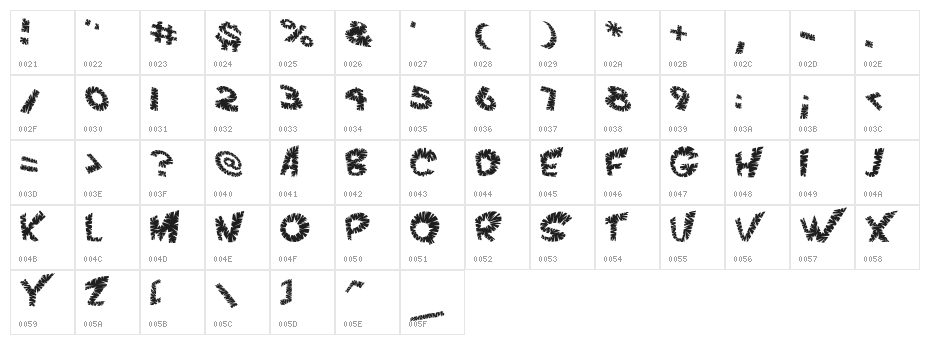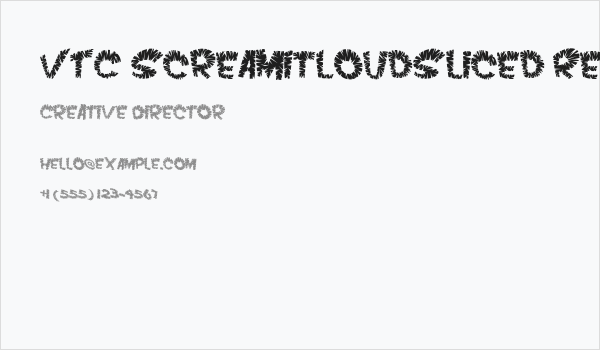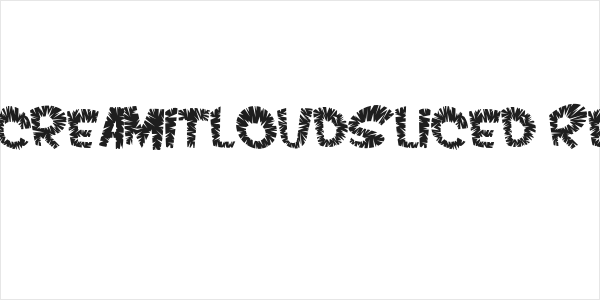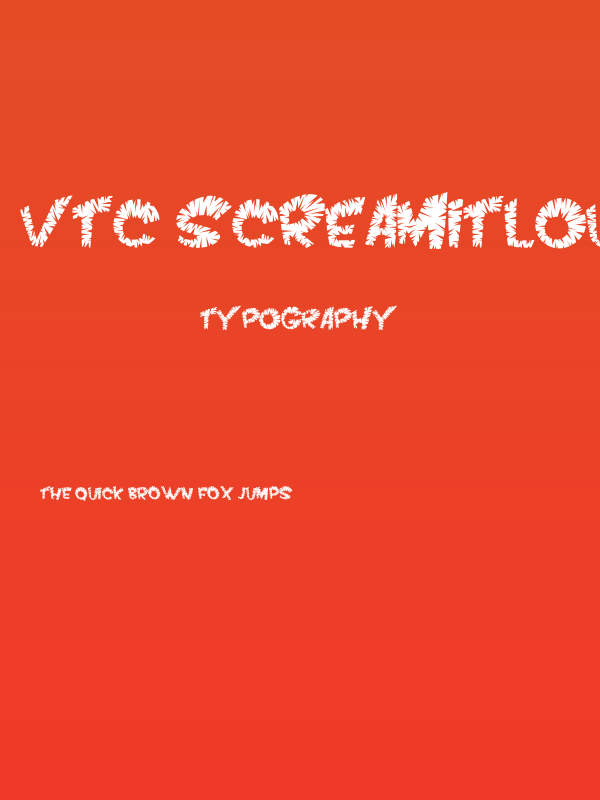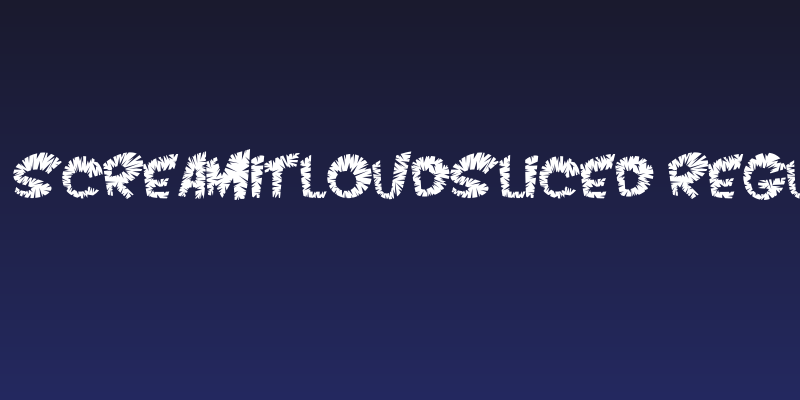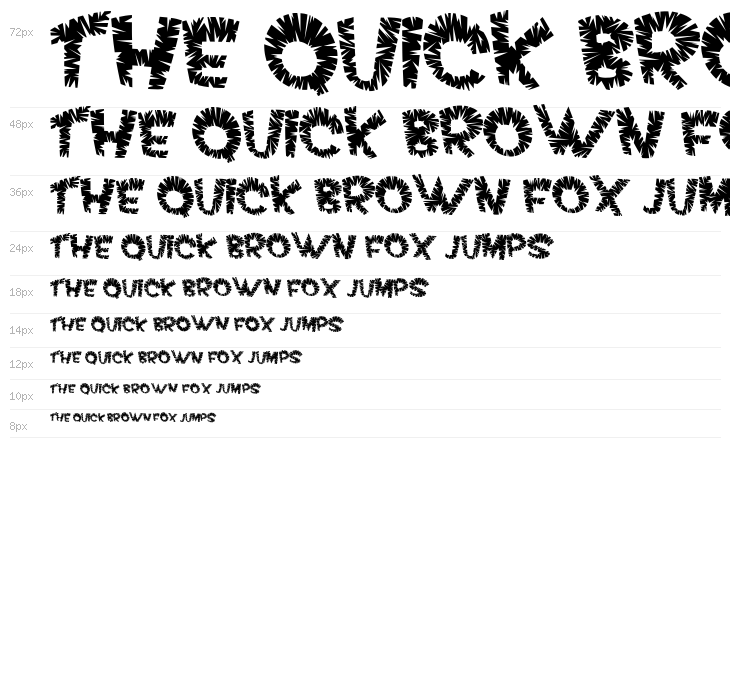
VTC ScreamItLoudSliced Regular Font
VTC ScreamItLoudSliced Regular Description
This font features a bold and dynamic design with a distinct sliced effect that gives each character a jagged, energetic appearance. The letters are heavily stylized, with sharp, angular cuts that create a sense of movement and intensity. This font is highly decorative and is best suited for projects that require a strong visual impact. The uppercase and lowercase letters maintain a consistent style, while the numbers and special characters are equally bold and striking. The overall design is unique and eye-catching, making it ideal for creative and unconventional uses.
| Proposed Projects | Ideal for album covers, posters, event flyers, and any project needing a bold, edgy look. |